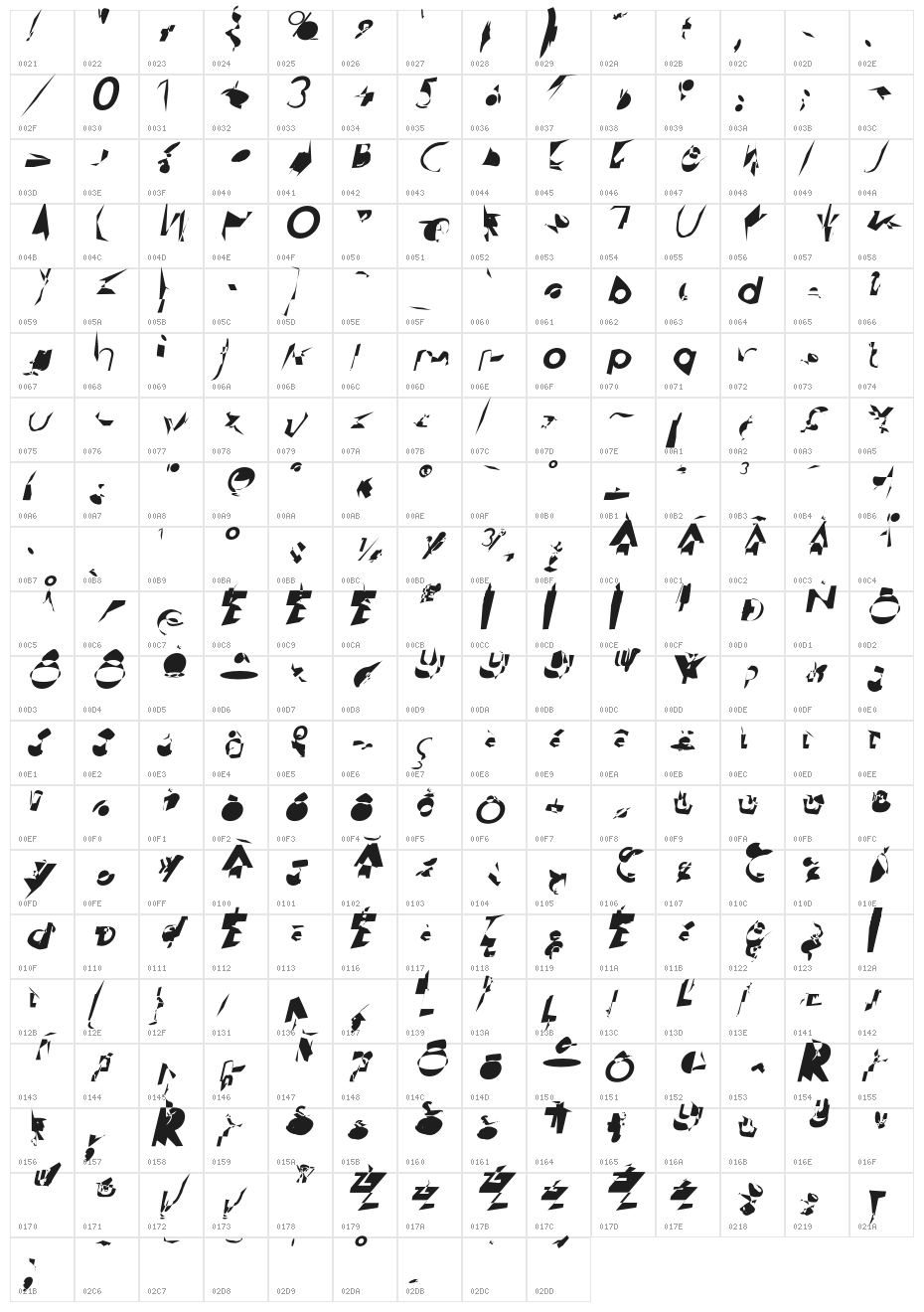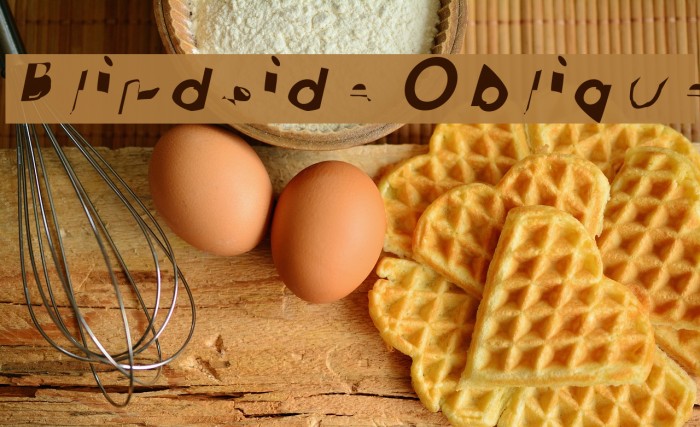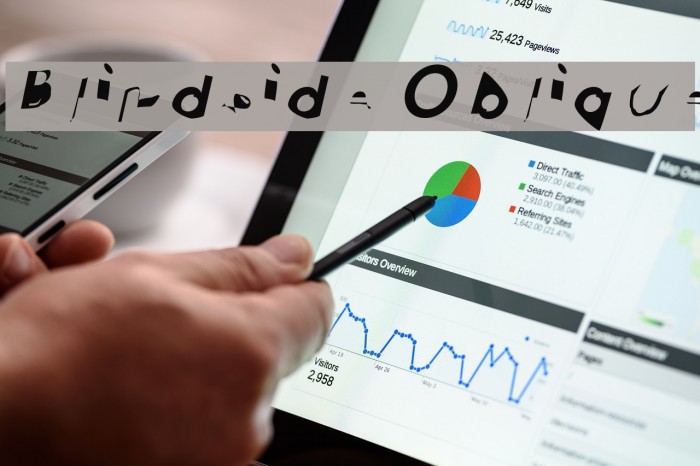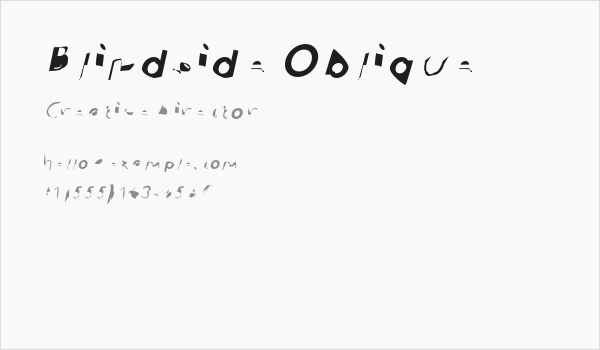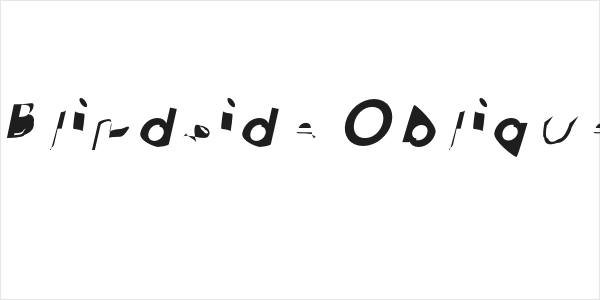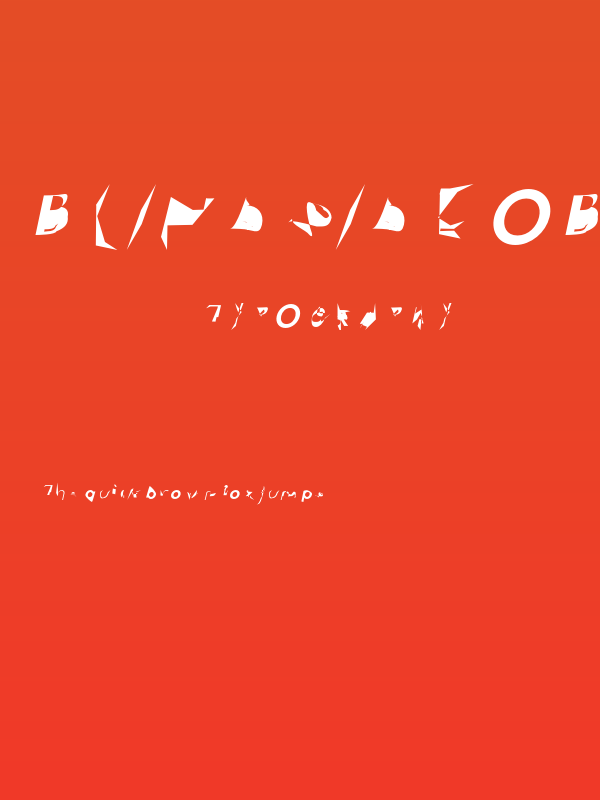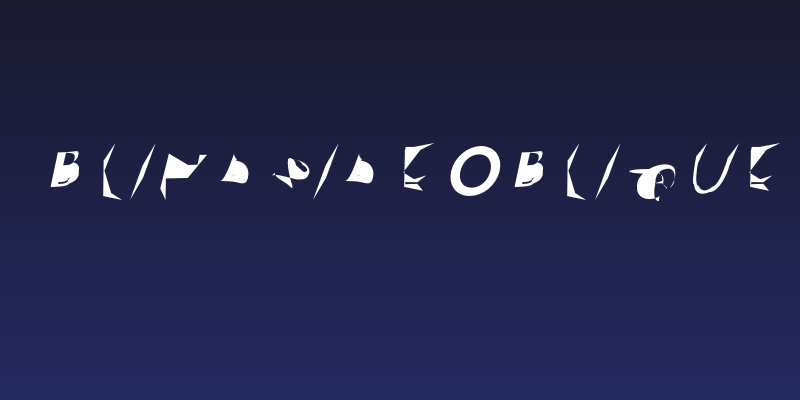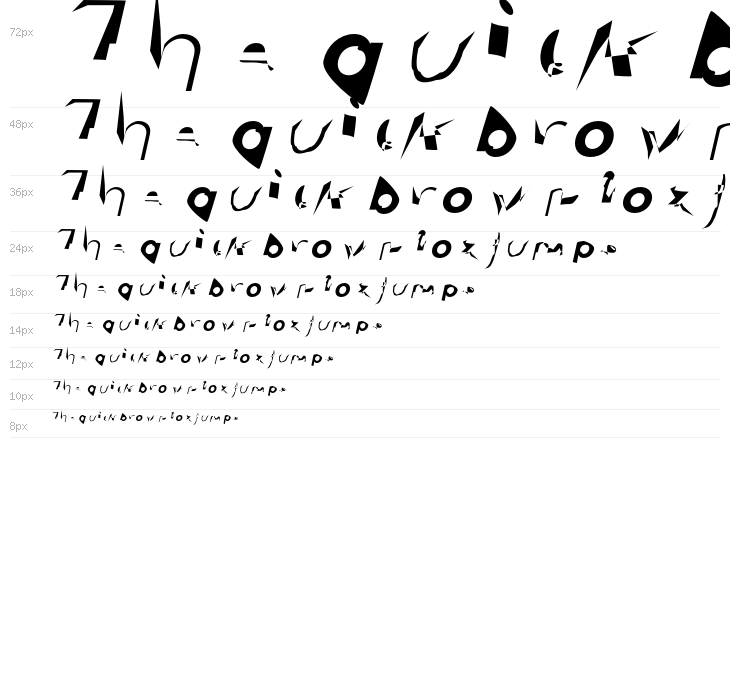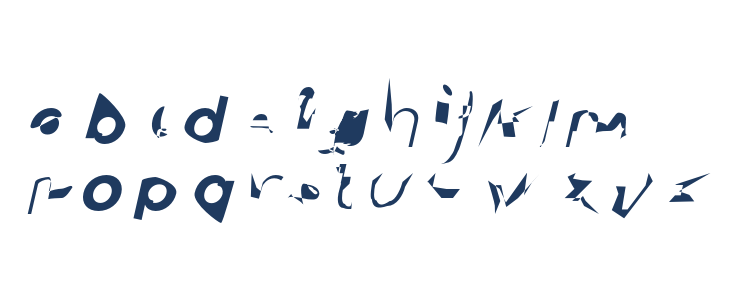
Blindside Oblique Font
Blindside Oblique Description
This font features a highly abstract and fragmented design, characterized by sharp angles and irregular shapes. The letters appear to be in motion, with a dynamic and chaotic style that gives a sense of urgency and energy. The strokes are bold and vary in thickness, creating a high contrast that enhances the dramatic effect. The overall appearance is modern and avant-garde, making it suitable for projects that aim to stand out and make a bold statement. The font's unique style may challenge readability, but it excels in creating a strong visual impact.
| Use Case | Logos, Headlines |
| Proposed Projects | Ideal for album covers, posters, and branding projects that require a striking and unconventional look. |